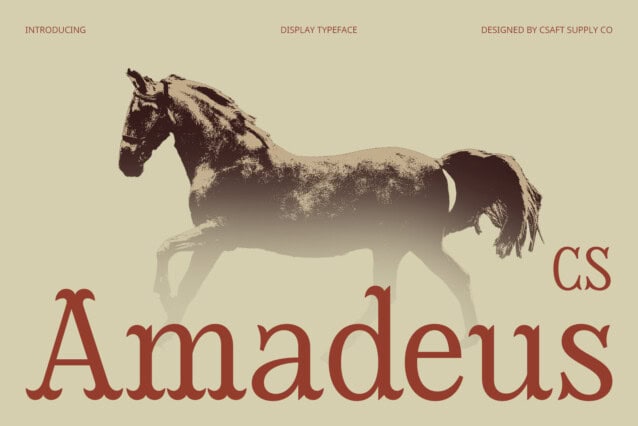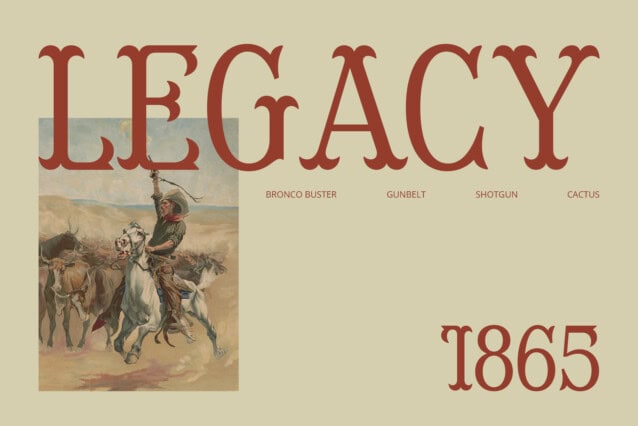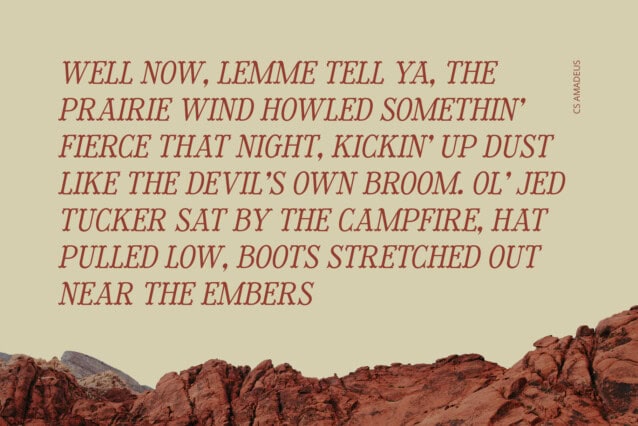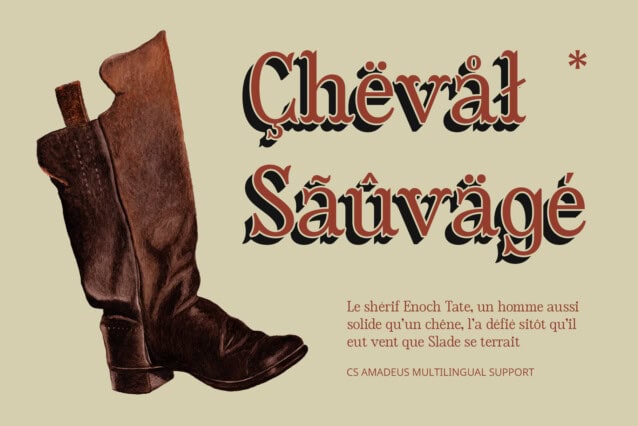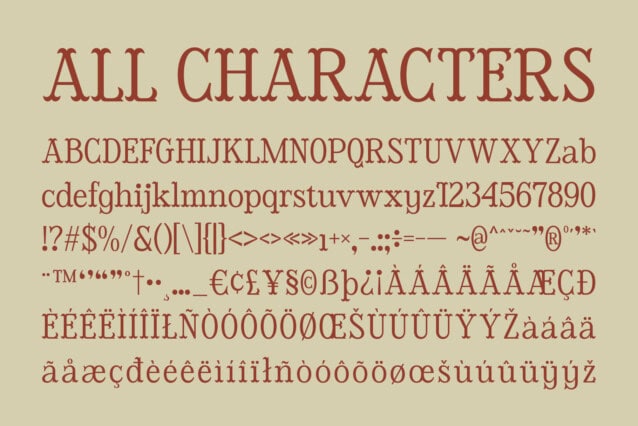
CS Amadeus Font
CS Amadeus Font is a highly decorative display serif font inspired by the Tuscan lettering tradition, known for its split, curved, and ornamental serifs. This unique styling gives the font an instantly recognizable, elegant yet playful aesthetic, making it a perfect choice for designs that demand a bold and artistic presence.